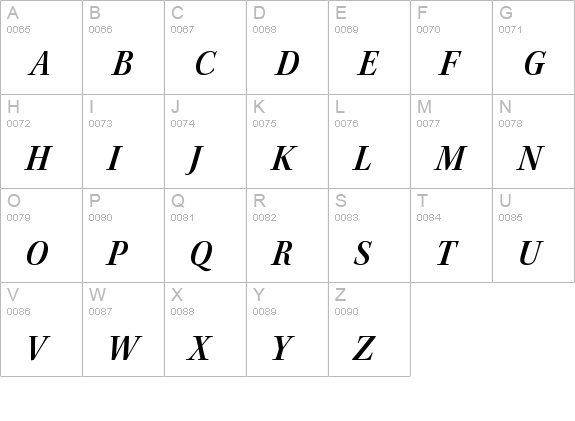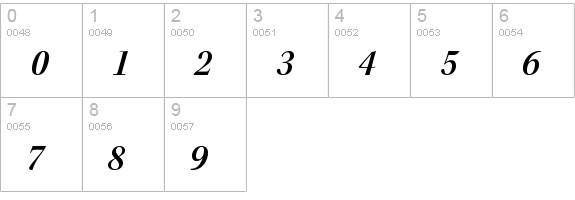
Kepler Std Semibold Semicondensed Italic Subhead is a sub-bold, structured, italic variant in the Kepler typeface family \xE2\x80\x94 well suited to sub-headlines and emphasised passages.
The Kepler Std Semibold Semicondensed Italic Subhead font is an exquisite and versatile typeface that exudes elegance and sophistication. Its semi-bold weight adds a touch of boldness, while the condensed design allows for efficient use of space. The italicized form adds a hint of slant and stylishness to any text it graces. With its clean and crisp lines, this font is perfect for creating captivating subheadings that effortlessly guide the reader's attention. Whether it's for a magazine layout, website design, or any other project requiring attention-grabbing headings, the Kepler Std Semibold Semicondensed Italic Subhead font is the ideal choice. One of the most remarkable aspects of this font is that it is freely available to download at FontsMarket.com. This means that you can easily access this stunning typeface without having to worry about any additional costs. It's a fantastic opportunity to enhance your design projects with a high-quality and visually appealing font. The Kepler Std Semibold Semicondensed Italic Subhead font showcases exceptional legibility and readability, making it highly suitable for both print and digital media. Its versatile nature allows it to seamlessly adapt to various design styles and layouts, ensuring that your content remains visually captivating and impactful. Add an air of sophistication and professionalism to your designs with the Kepler Std Semibold Semicondensed Italic Subhead font. With its refined aesthetics and freely accessible availability, this font is a must-have for any designer or creative enthusiast looking to elevate their work to new heights.